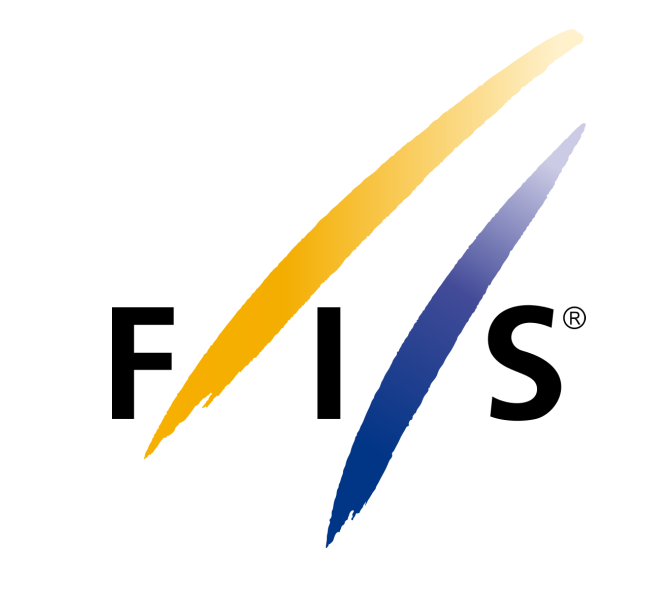
FIS Ski Logo Font
Fonts in UseInternational Ski Federation (FIS) is the international governing body for competitive skiing, overseeing various disciplines such as alpine skiing, cross-country skiing, ski jumping, and freestyle skiing.
The current FIS logo, introduced in 1993, depicts two tracks in the snow symbolizing the dynamic and fast-paced nature of ski sports. The logo's yellow and blue colors represent the vibrant competitions and ideal outdoor conditions, while the wordmark "FIS" is written in Frutiger Bold font designed by Adrian Frutiger.